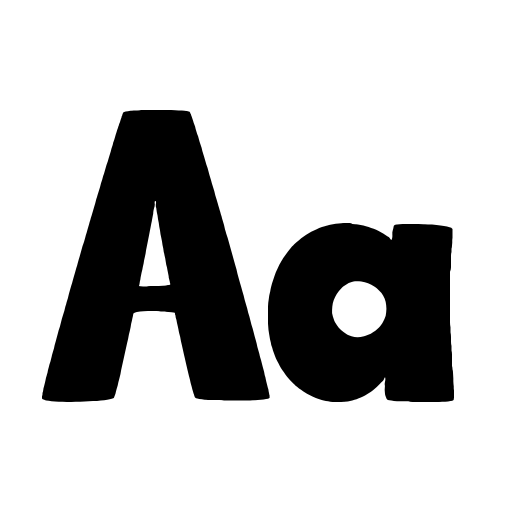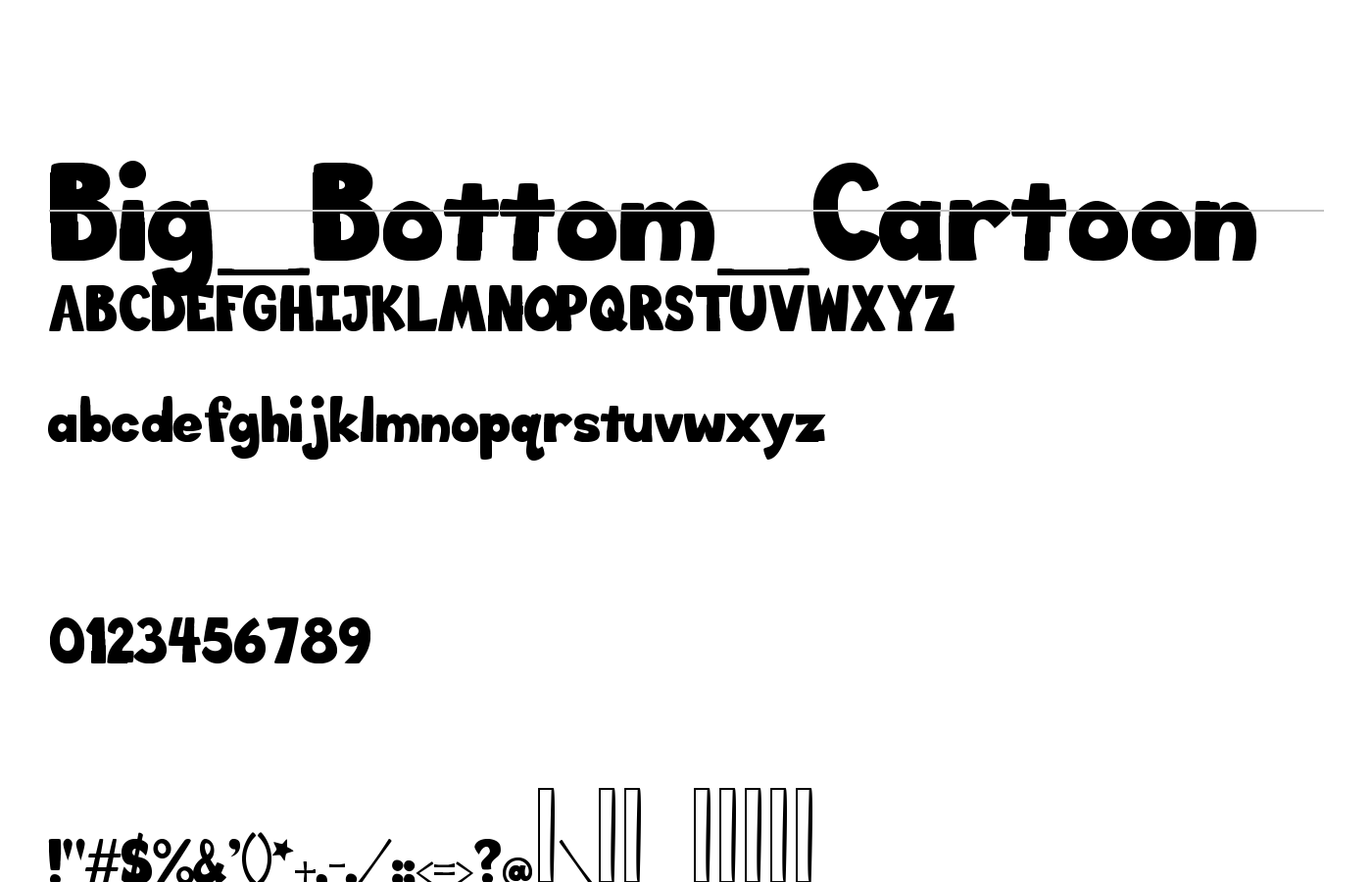
Big Bottom Cartoon is a bold, playful sans serif font with a heavy weight and slightly condensed width, featuring uneven, rounded letterforms that evoke a fun, whimsical feel. Its quirky design, characterized by thick strokes and exaggerated bottoms on certain characters, makes it perfect for lively, informal projects such as children's books, cartoons, and eye-catching headlines. This font works best where a casual, energetic vibe is desired, adding personality and charm to logos, posters, and playful branding.
Big_Bottom_Cartoon Font